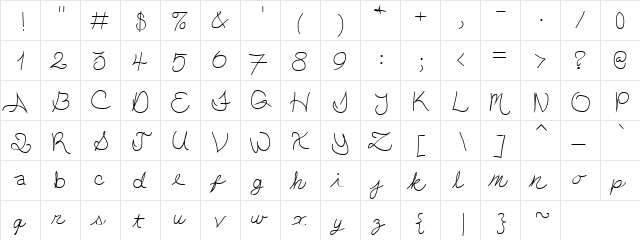
Ducky Regular
| Foundry | RudynFluffy Entertainment |
| Designer | RudynFluffy |
Ducky takes a measured approach to typography — its balanced proportions and neutral character make it a reliable workhorse for both digital and print work.